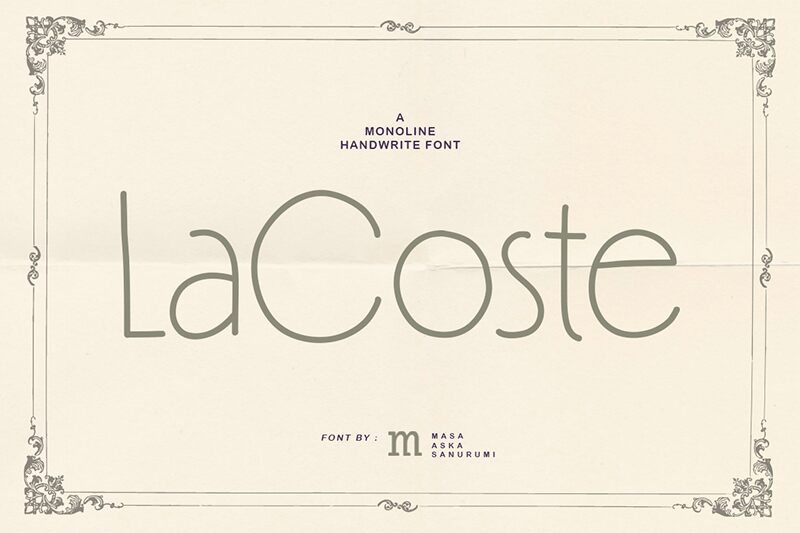
Lacoste, designed by Masa Aska Sanurumi, is a handwritten font that exudes a unique blend of elegance and casual charm. With its extra-light weight and semi-condensed width, Lacoste brings a delicate and refined aesthetic to the table. The font's flowing lines mimic the beauty of human handwriting, infusing each glyph with a sense of individuality and personal touch.
The subtle nuances in stroke variation found in Lacoste make it an aesthetically appealing choice for designers seeking to add a gentle yet sophisticated flair to their projects. This font shines particularly well in contexts that require an intimate, bespoke feel-perfect for invitations, boutique branding, or editorial design where a touch of humanity is desired.
Lacoste's versatility extends to digital spaces as well; its clean lines and open forms ensure excellent legibility even at smaller sizes. Whether used for web content or mobile app interfaces, this font maintains its distinctive character without sacrificing functionality.